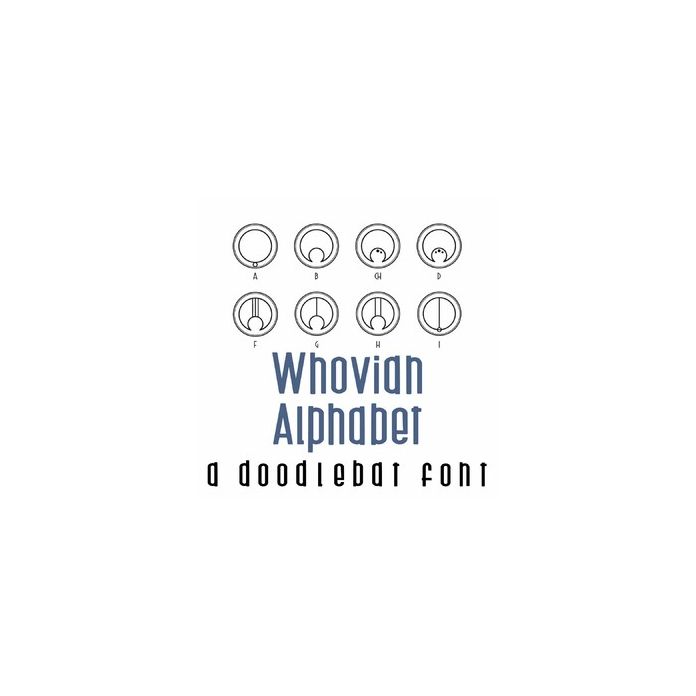
This fun doodlebat font features 29 Gallifreyan letters from your favorite Time Lord. Perfect for cards, crafts, gifts, decor, scrapbook pages, planner stickers and more! A-Z and 1-3.